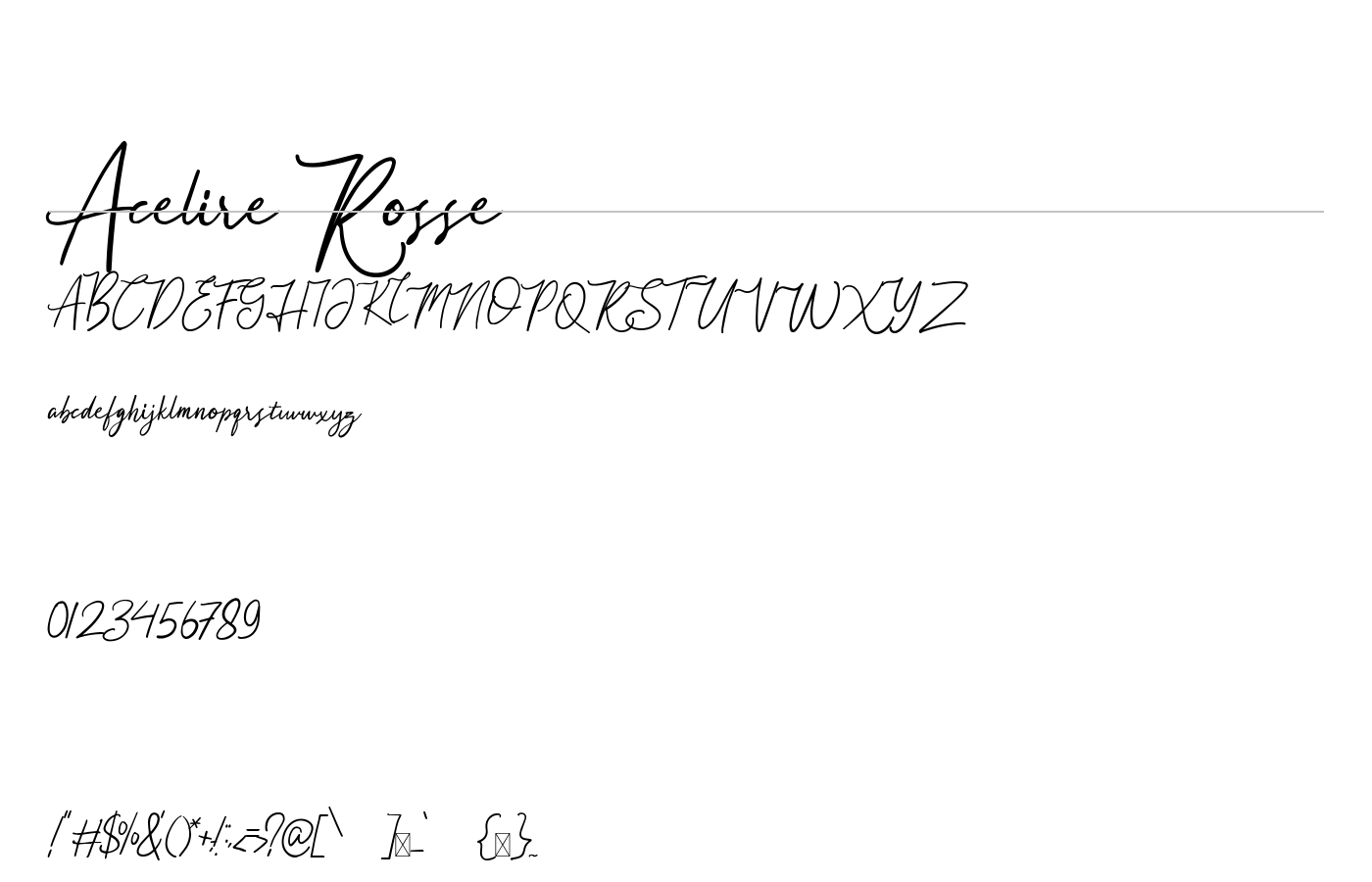
Acelire Rosse is an elegant, thin script font with a flowing, hand-drawn style that brings a sense of sophistication and charm. Its tall, slender letterforms and delicate strokes make it ideal for upscale branding, invitations, and stylish headlines where a personal, artistic touch is desired without sacrificing readability. This font works best in contexts that seek a refined, graceful aesthetic with a modern flair.
Acelire Rosse Font
About Acelire Rosse Font